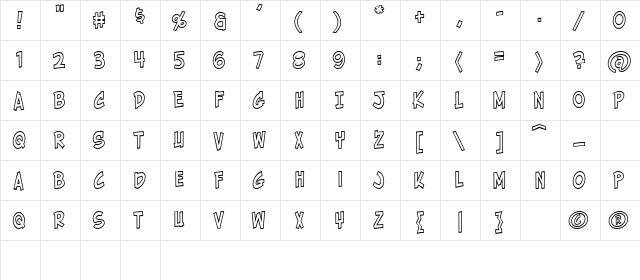
Holy Mackerel! Outline Regular
Design Context for Holy Mackerel! Outline Typeface
Holy Mackerel! Outline brings ornamental detail and strong personality to headlines and identities, where visual impact matters more than quiet functionality.
Font Pairing: Pair with a clean neutral sans-serif for body copy to let Holy Mackerel! Outline's character lead without overwhelming the composition.
Pro Tip: Use Holy Mackerel! Outline exclusively at display sizes — it was designed to be seen, not read at length. Let a neutral companion handle body copy.